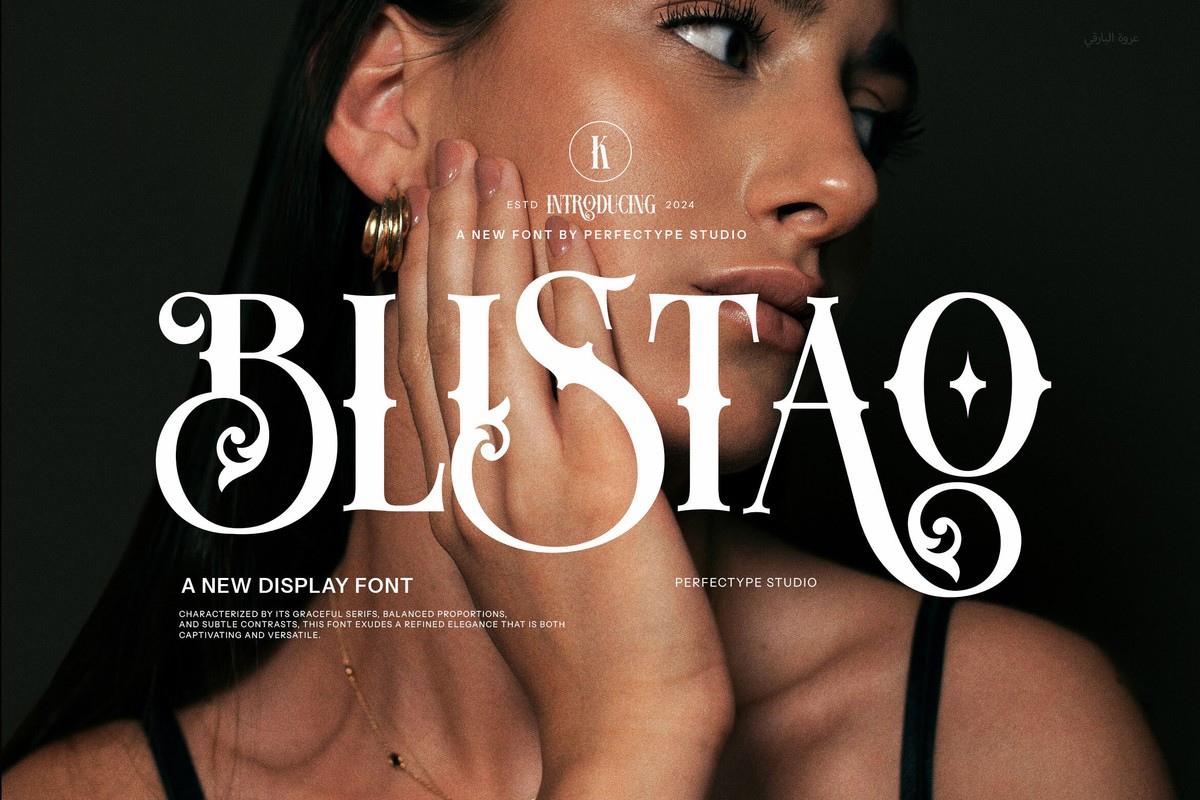
Blistao Font
Blistao Font is ideal for high-energy fitness centers, dynamic sports team branding, explosive action movie titles, intense workout program promotions, adrenaline-fueled adventure sports marketing, powerful energy drink campaigns, extreme sports equipment packaging, high-impact athletic training materials, fast-paced gaming interfaces, and electrifying entertainment venue signage. This explosive typeface brings kinetic energy and dynamic power to any high-intensity design project.
Blistao Font is exciting because it captures the explosive energy and dynamic power that erupts when passion meets performance, featuring bold letterforms that seem to burst with kinetic force and convey the same intense energy that drives athletes to push beyond their limits. Its explosive character instantly communicates high-impact performance, dynamic action, and the unstoppable momentum that defines peak athletic achievement and extreme sports excellence.
Blistao Font family includes Regular, Bold, Heavy, and Black weights with explosive alternates, dynamic flourishes, high-energy ornamental elements, and power symbols that enhance the kinetic aesthetic, providing energy designers with powerful tools for creating typography that captures explosive momentum and celebrates the dynamic forces that drive peak performance and athletic excellence.
Sports marketing designers appreciate Blistao Font for its exceptional ability to convey explosive energy and dynamic power through boldly crafted letterforms. The font's kinetic character and energy details create immediate associations with intense training, competitive sports, and the explosive moments when athletes transcend ordinary performance to achieve extraordinary results through dedication, power, and unstoppable determination.
The design philosophy behind Blistao Font celebrates the explosive power of human potential and the dynamic energy that emerges when athletes commit to excellence and push beyond conventional limits to achieve peak performance, making it particularly effective for fitness brands, sports organizations, and energy companies that inspire people to unleash their potential. Athletic teams working on high-impact campaigns find this font essential.
Whether used for extreme sports competitions, high-intensity fitness programs, or dynamic energy campaigns, Blistao Font delivers the perfect combination of explosive power and athletic authenticity. Its kinetic appeal and dynamic energy make it an indispensable choice for brands that celebrate peak performance, promote explosive action, and inspire people to unleash their full potential through intense training and competitive excellence.